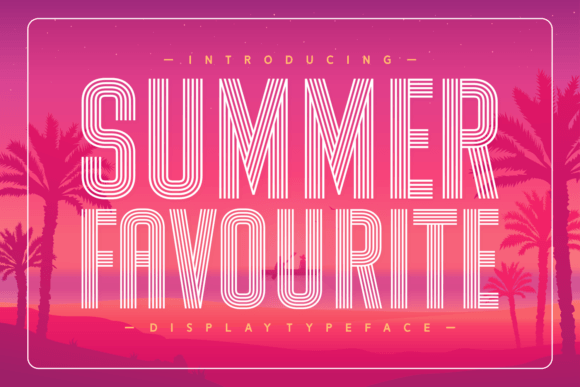
Take a typography trip to the tropics with Summer Favourite, an enchanting display font that's as breezy as a summer's day. This font is not just a collection of letters; it's a gateway to a world of creativity, allowing you to express yourself in ways you never thought possible. Dive into its modern yet whimsical style, and feel the magic as your designs transform into captivating masterpieces.
Escape the mundane and embrace uniqueness. Summer Favourite is the perfect font for making your headlines sizzle, your logos dance, and your social media posts pop. It's a font that captures the carefree spirit of summer, bringing a touch of playfulness and joy to your designs.
With Summer Favourite, you'll never be short of inspiration. Its versatile personality makes it suitable for a wide range of projects, from eye-catching posters and vibrant brochures to stylish invitations and delightful social media graphics. Let your imagination run wild, and explore the endless possibilities that await you.
Step into a world where fonts are more than just letters. Summer Favourite is not just a font; it's an experience. It's a chance to infuse your designs with personality and charm, to make them stand out from the crowd. Unleash your creativity and embark on a typographic adventure like no other.
Transform your designs into works of art with Summer Favourite. Say goodbye to dull and ordinary fonts, and embrace the power of expression. Make your words dance off the page, capture attention, and leave a lasting impression. Experience the magic of Summer Favourite today, and discover the limitless possibilities that await you.